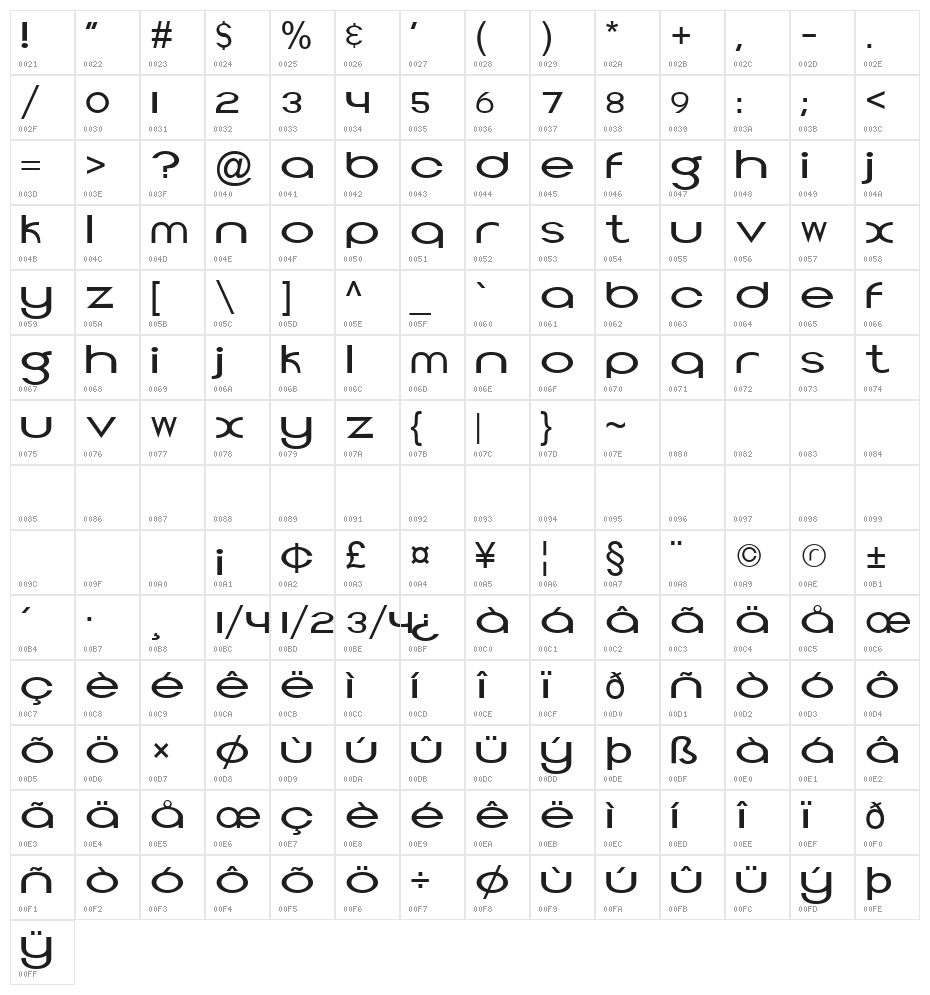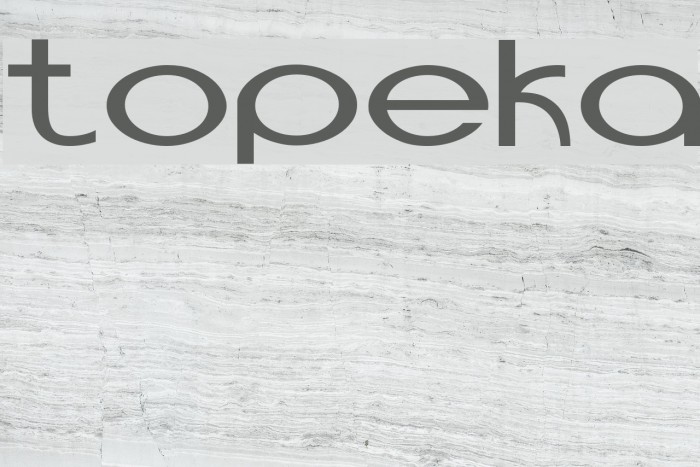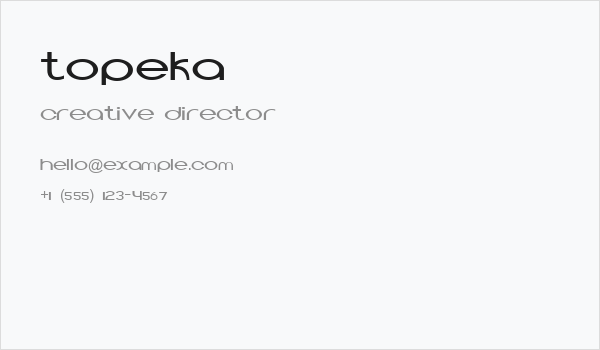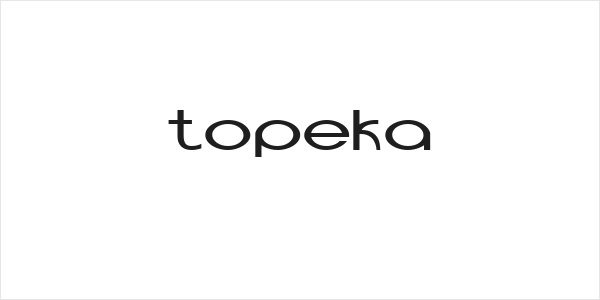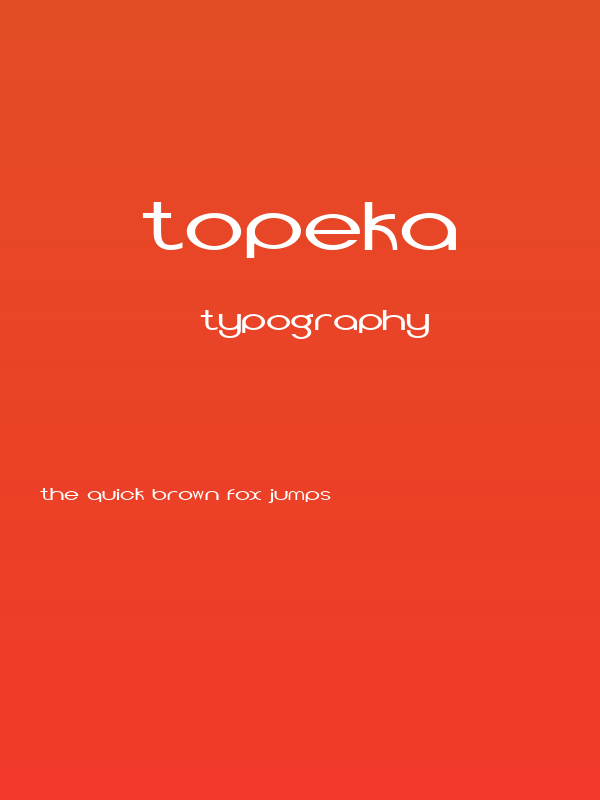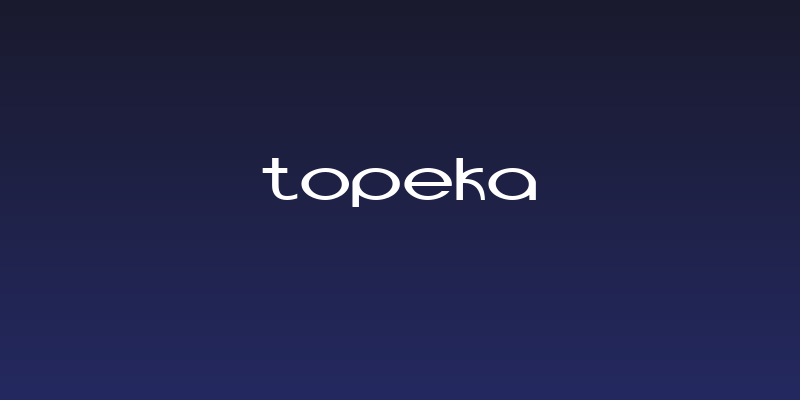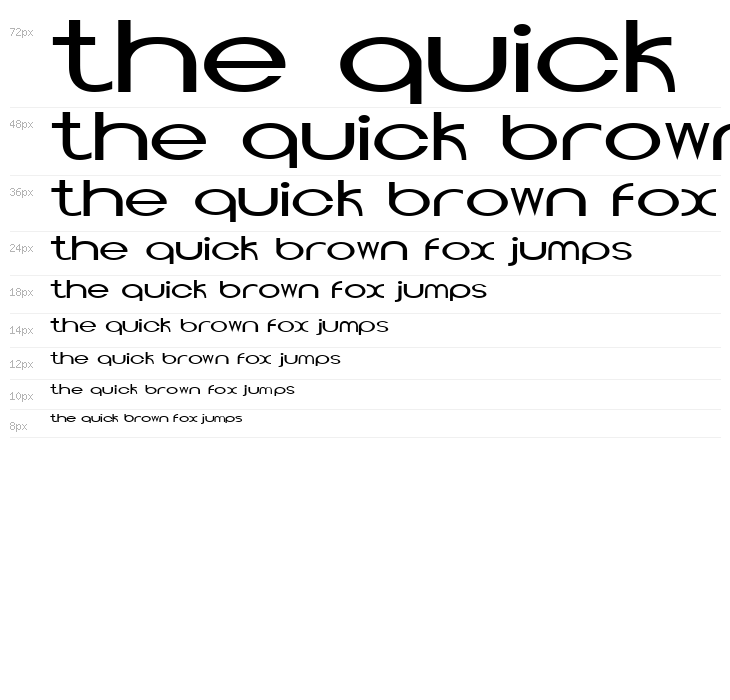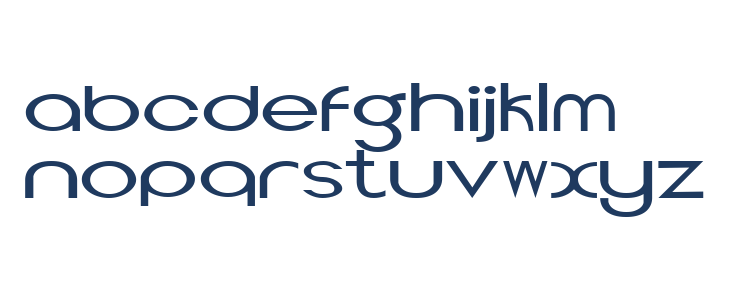
Topeka Font
Topeka Description
This font features a modern and sleek design with smooth, rounded edges and a geometric structure. The characters are evenly spaced, providing a clean and organized appearance. The uppercase and lowercase letters maintain a consistent style, with a slight variation in stroke width that adds a subtle elegance. Numbers are bold and clear, ensuring readability. Special characters are designed with the same attention to detail, making them blend seamlessly with the rest of the font. The overall aesthetic is contemporary, making it suitable for a variety of digital and print applications.